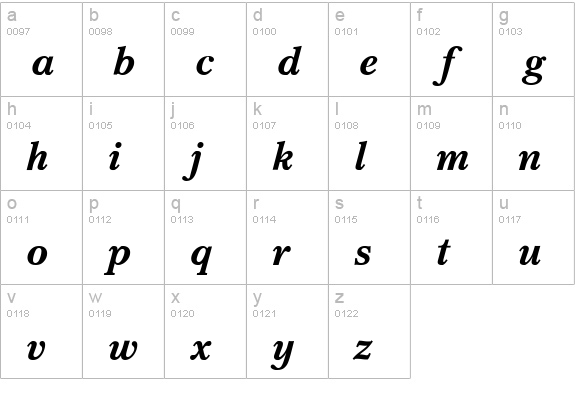
Cremona Expert Bold Italic OsF Font Details
Cremona Expert Bold Italic OsF is a strong, high-contrast, italic variant in the Cremona typeface family \xE2\x80\x94 well suited to headlines, attention-grabbing titles, and strong calls-to-action.
Cremona Expert Bold Italic OsF font is a versatile and elegant typeface that exudes sophistication and professionalism. Its bold and italic design adds a touch of flair and emphasis to any project, making it ideal for headings, titles, and branding materials. The expertly crafted letterforms of this font ensure legibility and readability across various mediums. What sets Cremona Expert Bold Italic OsF font apart is its attention to detail and precision in design. Each character is meticulously crafted to create a harmonious and visually appealing typeface. Whether used in print or digital design, this font will make a lasting impression on your audience. The best part? Cremona Expert Bold Italic OsF font is available for free download at FontsMarket.com. You can easily access and use this high-quality font for your personal or commercial projects without breaking the bank. Enhance your designs with the timeless elegance of Cremona Expert Bold Italic OsF font today.